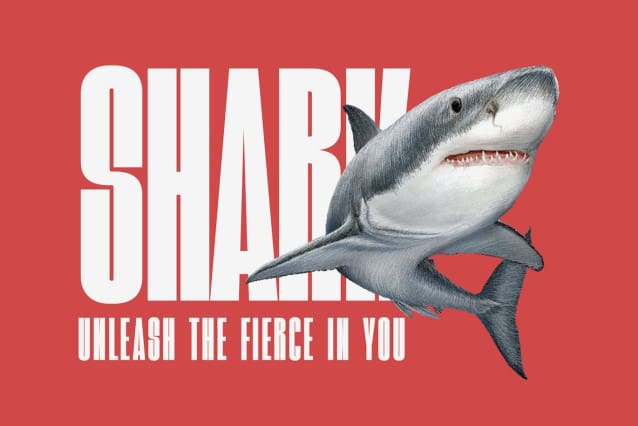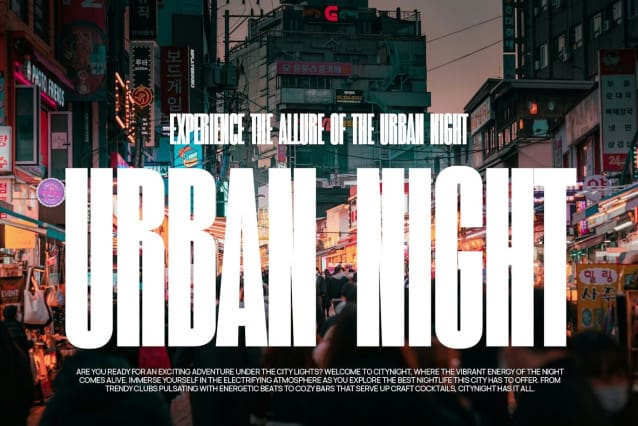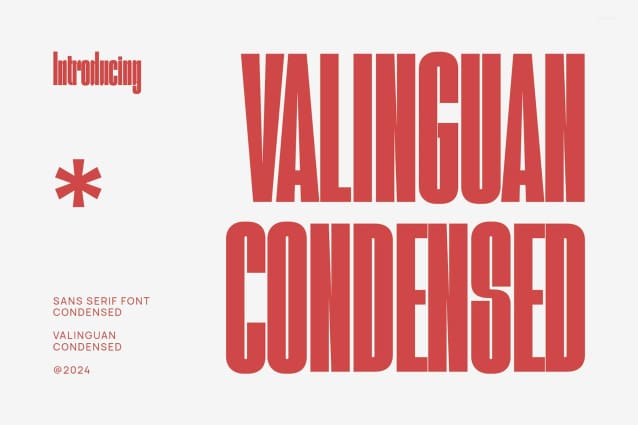
Valinguan Condensed Font
Valinguan Condensed font, a modern sans serif with an elegant style, perfect for branding, logos, invitations, magazines, product packaging and more.